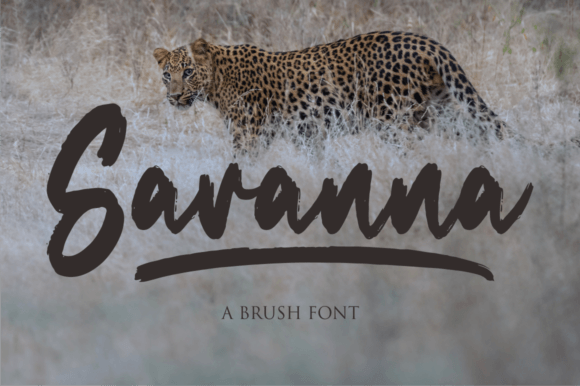
Live your wild side with Savanna Font, the ultimate brush script font that brings a touch of untamed nature to your designs. Harness the raw energy of a free-flowing river and unleash your creativity with this captivating font, meticulously crafted to transport you to the heart of the untamed wilderness.
Savanna's elegant ligature characters dance across the page, effortlessly guiding your words into an artful symphony. Watch in awe as your projects transform into masterpieces, exuding an aura of grace and sophistication. From digital wedding blogs and online shops to social media posts and eye-catching prints, Savanna weaves its magic, leaving a lasting impression wherever it goes.
Express your individuality through a myriad of creative avenues – whether it's clothing, accessories, bags, pins, logos, or business cards, Savanna adapts effortlessly, adding a touch of rustic charm or wild sophistication, depending on your artistic vision. Let your designs roar with the untamed spirit of the wild and leave an everlasting mark on the hearts of your audience.
Imagine your brand's logo adorned with Savanna's majestic strokes, commanding attention and setting you apart from the mundane. Picture your social media posts bursting with visual allure, captivating your audience with every scroll. Let your watermarks bear the unique imprint of Savanna, imbuing your creations with an air of authenticity and artistry.